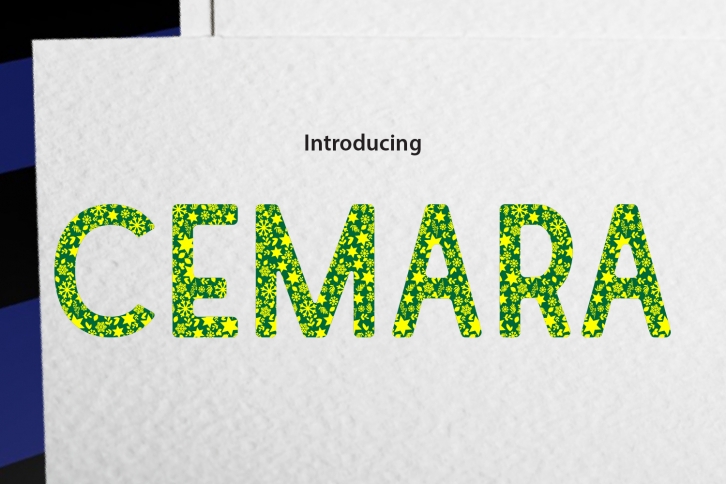
CEMARA is a trendy and unique font with an authentic style. It was designed by daonlyaan and it's a great choice for creative people who need such a font. It was released on September 20, 2019 and the file size is 11.79 MB. CEMARA will add an organic vibe to any design idea!